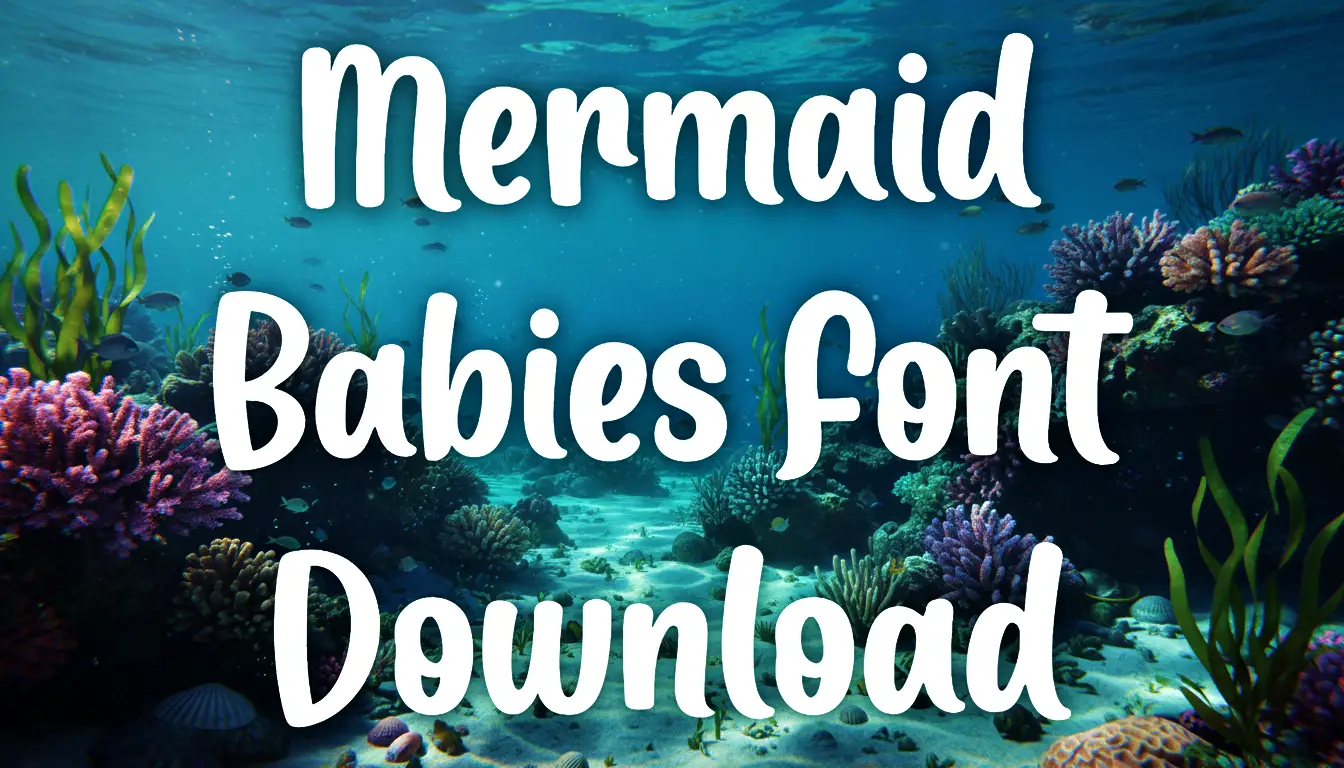
Mermaid Babies Font
Mermaid Babies
- Designer: Rangga Singgih Subekti
- Publisher: Rangga Singgih Subekti from Subectype
What You Can Type With Mermaid Babies
With complete upper and lowercase letters and all ten digits, Mermaid Babies is ready for real wording, not just a single headline. Common punctuation such as &, !, ? and @ is included as well. It also has the accented letters you need for Spanish, French, Portuguese and Italian.
Where Mermaid Babies Works Best
Mermaid Babies is a natural fit for posters, logos and eye-catching headlines. Use it for one standout word or headline and let simpler fonts handle the rest.
Does Mermaid Babies support accented letters?
Yes. Mermaid Babies includes the accented letters needed for Spanish, French, Portuguese and Italian, so it works for more than just English.